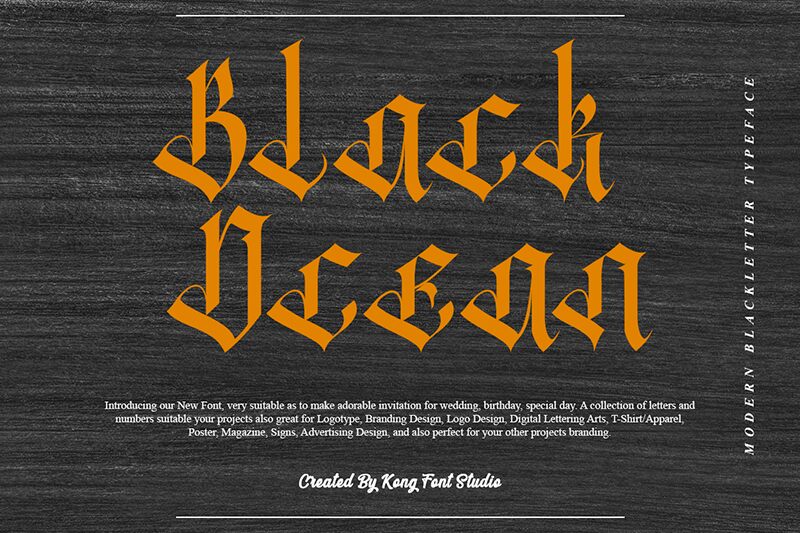
Black Ocean
Black Ocean, designed by Kong Font, is a modern gothic font with narrow width and light weight. It's perfect for creating bold and stylish designs like poster art, logos, and album covers.